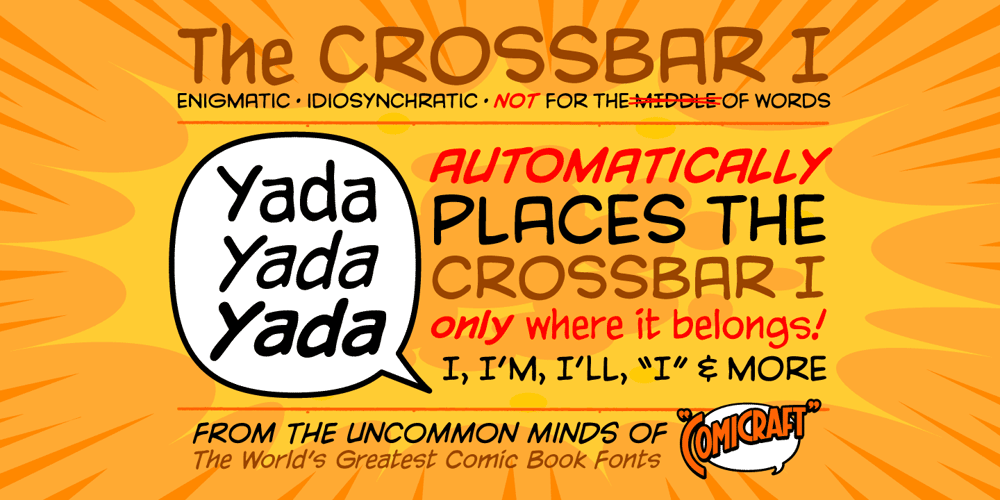
Yada Yada Yada
Yada Yada Yada font
Yada Yada Yada Font Family was designed by Richard Starkings, John Roshell, Comicraft Design and published by Comicraft. Yada Yada Yada contains 4 styles and family package options. Trapped on a disk they never made… We recently unearthed the All-Uppercase version of our popular YadaYadaYada font family, originally created for the now-legendary X-MEN: AGE OF APOCALYPSE crossover! Brought from the perilous past into the fearless future, YADA YADA UPPER contains alternate versions of each uppercase letter, and is our very first font to automatically place the CROSSBAR I in exactly the right spots! (Opentype version only)